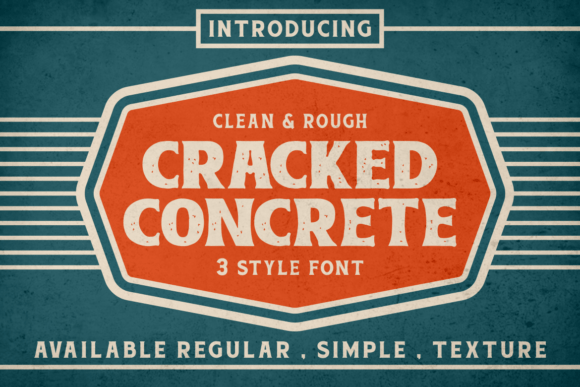
Cracked Concrete Font: A Timeless Typographical Masterpiece
In the realm of typography, few fonts manage to capture the essence of classic design while exuding a timeless charm. Cracked Concrete Font, specifically the Cracked Concrete – Vintage Serif Font, stands out as a typographical masterpiece that instantly transports you to the golden age of classic design. This font is not just a typeface; it’s a design statement that brings the elegance of the past into the present with its bold, classic serif characters.
Embracing Retro and Vintage Aesthetics
The Cracked Concrete – Vintage Serif Font is deeply rooted in retro and vintage design aesthetics. Its characters are meticulously crafted to reflect the charm and sophistication of bygone eras, making it an ideal choice for designers looking to infuse their projects with a sense of nostalgia and classic elegance. Whether you’re working on a logo, an invitation, packaging, a poster, or any other design project, this font ensures that your creations are imbued with a retro vibe that captivates and resonates with audiences.
Versatility at Its Best: Multiple Font Versions
Understanding the diverse needs of designers, Cracked Concrete – Vintage Serif Font offers two distinct versions: a clean variant and a textured version. The clean variant provides a polished and refined look, perfect for projects that require a sleek and sophisticated appearance. On the other hand, the textured version adds depth and character to your designs, giving them a more rustic and vintage feel.
In addition to these two versions, the font also offers two thickness options: regular and bold. This range of options allows for greater versatility in your projects. You can choose the regular version for body text or subtle headings and the bold option for titles or emphasis, ensuring that your design maintains visual hierarchy and aesthetic balance.
Ideal for Various Design Projects
The Cracked Concrete – Vintage Serif Font is incredibly versatile and can be used across a wide range of design projects. Its classic and timeless appeal makes it suitable for:
- Logos: Create memorable and impactful logos that stand out with a vintage flair.
- Invitations: Add a touch of elegance and sophistication to your invitations, making them perfect for special occasions.
- Packaging: Elevate your product packaging with a design that speaks to a rich heritage and quality.
- Posters: Design eye-catching posters that capture attention and evoke a sense of nostalgia.
- Titles: Use the bold version for titles to make a strong statement in any project.
- Businesses: Ideal for businesses looking to brand themselves with a classic and professional image.
- Greeting Cards: Add a personal touch to your greeting cards, making them more heartfelt and unique.
- Magazines: Use it for headings or body text in magazines to give them a distinctive vintage look.
Why Choose Cracked Concrete – Vintage Serif Font?
Choosing Cracked Concrete – Vintage Serif Font for your design projects comes with numerous benefits:
- Timeless Appeal: The font’s classic design ensures that your projects remain relevant and stylish for years to come.
- Versatility: With multiple versions and thickness options, you have the flexibility to use it across various projects and applications.
- Ease of Use: The font is easy to integrate into your design workflow, allowing for a seamless design process.
- High-Quality Design: Crafted with attention to detail, the font provides high-quality characters that enhance the visual appeal of your projects.
Unleash the Nostalgia and Classic Elegance
Cracked Concrete – Vintage Serif Font is more than just a typeface; it’s a gateway to bringing the charm and sophistication of the past into your designs. Its timeless appeal, combined with its versatility and range of applications, makes it an invaluable asset for designers. Whether you’re looking to create a vintage-themed project or simply want to add a touch of classic elegance to your designs, Cracked Concrete – Vintage Serif Font is the perfect choice. Let your designs shine with vintage sophistication and make a lasting impression on your audience.